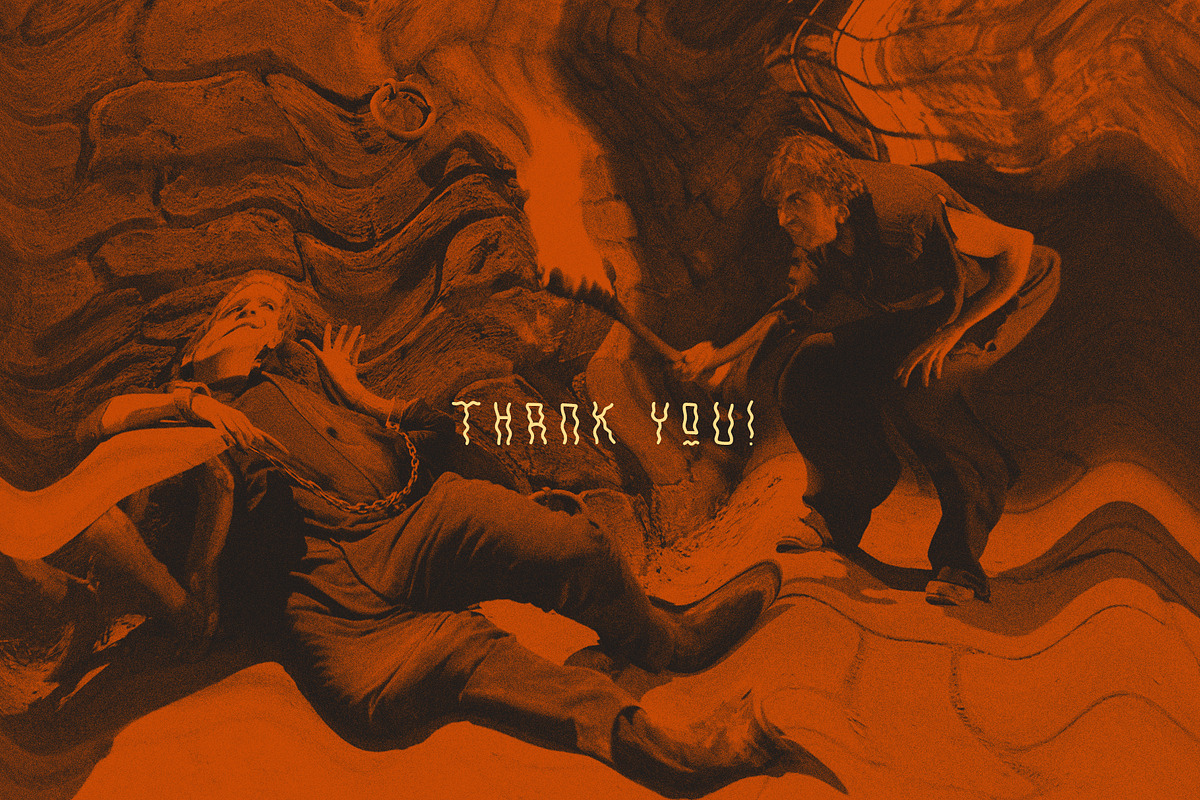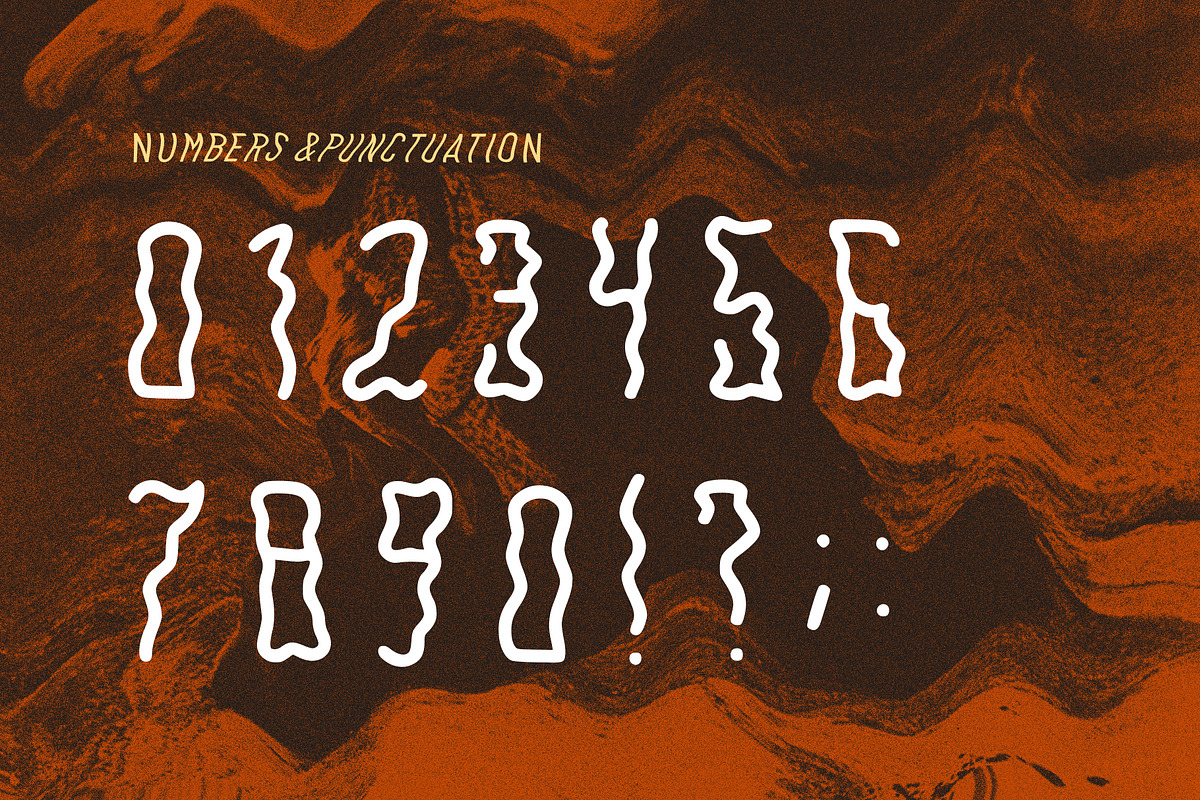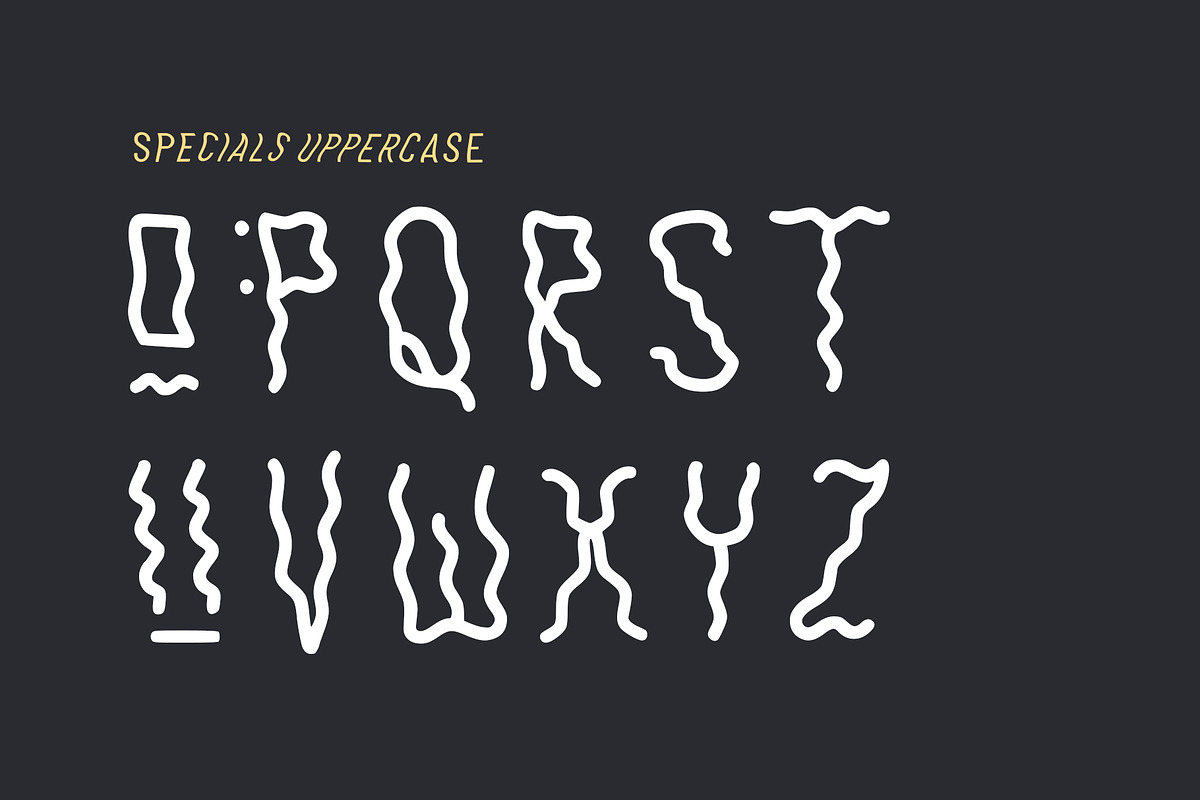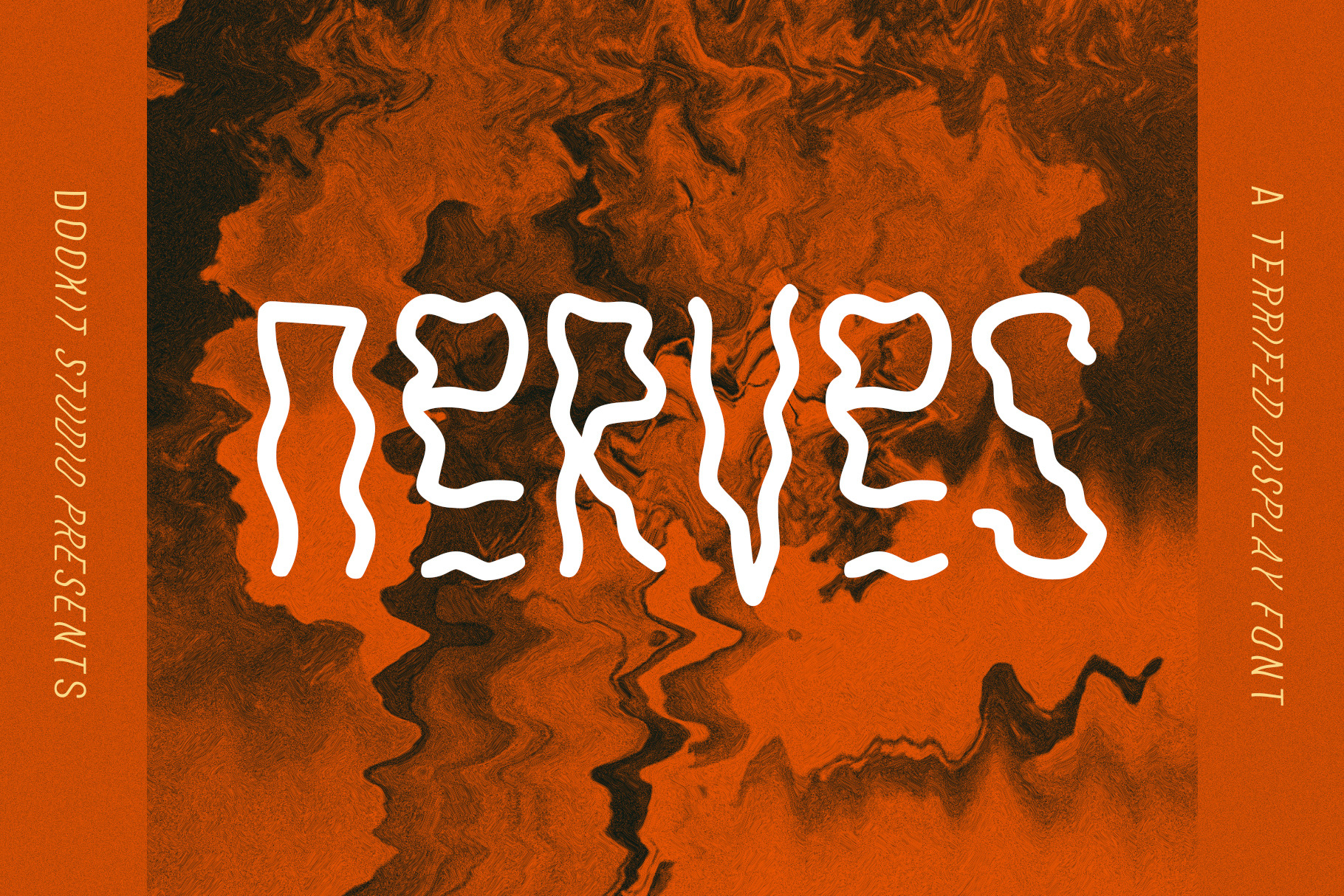
Nerves halloween horror font
Spent too many hours inside watching old horror movies? Worried about what lurks around the next corner? Having strange visions you're hoping are just your imagination? Then this could be the font for you!
Nerves is an uppercase display font that expresses a strange nervousness and would look great on halloween posters, graphic novels or websites.
Comes with playful & strange alternative characters.